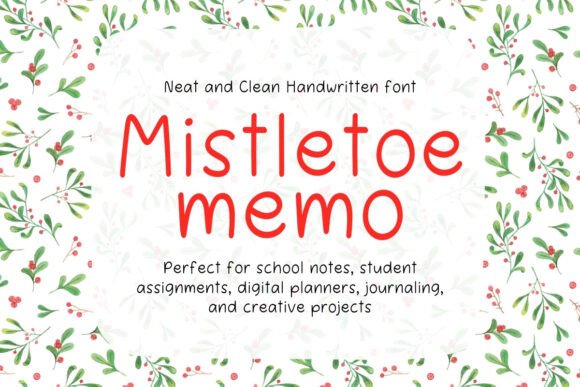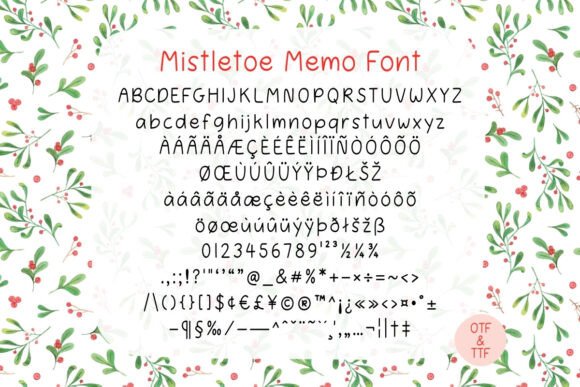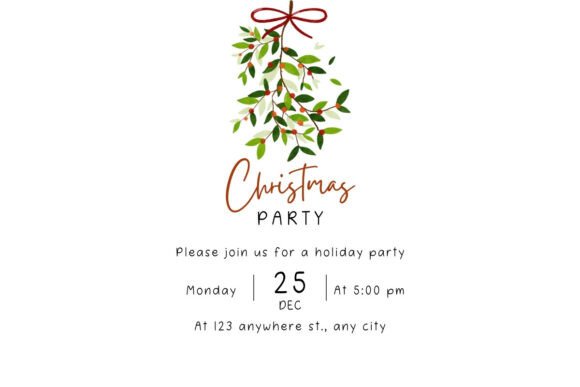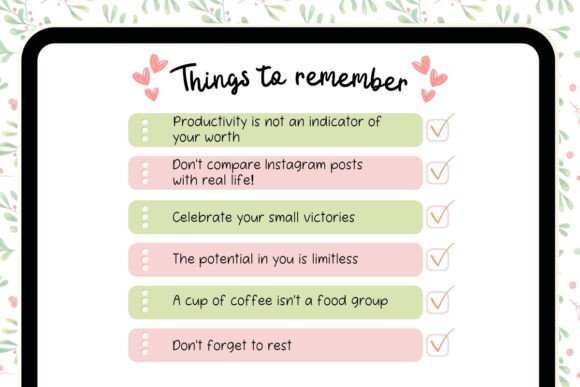
Mistletoe Memo Font
About the Mistletoe Memo Font
Meet Mistletoe Memo Font, a stunning font that brings a touch of elegance and professionalism to any design. Mistletoe Memo is a neat and clean handwriting font designed for stylish and organized note-taking. Perfect for school notes, student assignments, digital planners, journaling, and creative projects on GoodNotes, iPad, Procreate, and more. Its polished, minimal style makes it ideal for academic, personal, or professional use. Whether you’re crafting, planning, or studying, Mistletoe Memo brings clarity and charm to your projects!
Mistletoe Memo’s clean lines and delicate forms make it particularly well-suited for headings, short paragraphs, and branding elements where readability at a glance is key. It excels in applications such as logos, short quotes on marketing materials, and stylish packaging designs. However, its handwritten nature makes it less suitable for lengthy body text or user interface elements where consistent readability across various sizes is critical.
The overall personality of Mistletoe Memo is refined and approachable, conveying a sense of both organization and creativity. Its subtle charm makes it ideal for brands aiming for a sophisticated yet friendly image.
Mistletoe Memo Font Example